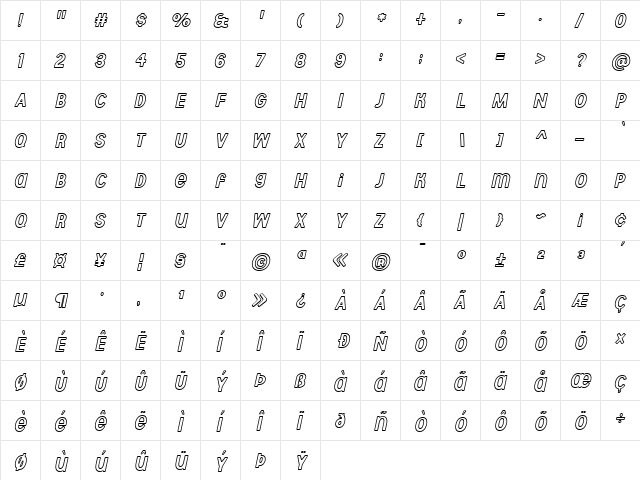
Aberforth Outline Italic Regular
Design Context for Aberforth Outline Italic Typeface
Aberforth Outline Italic is built around its visual character rather than neutral utility — its distinctive forms are designed to make an impression at display sizes. Its italic angle brings a sense of urgency and motion to the letterforms.
Font Pairing: Pair with a clean neutral sans-serif for body copy to let Aberforth Outline Italic's character lead without overwhelming the composition.
Pro Tip: Treat Aberforth Outline Italic as the centrepiece of your typographic hierarchy. One strong heading set in a decorative face can carry an entire layout.